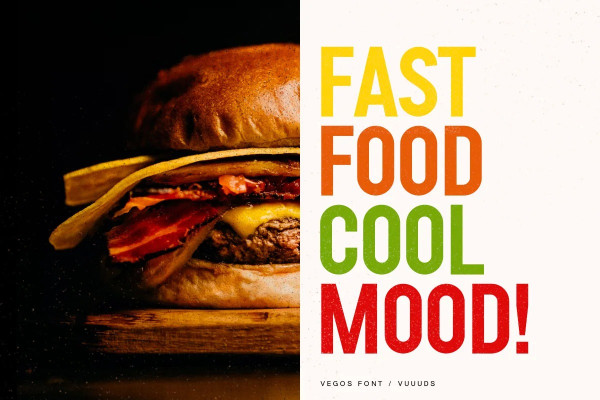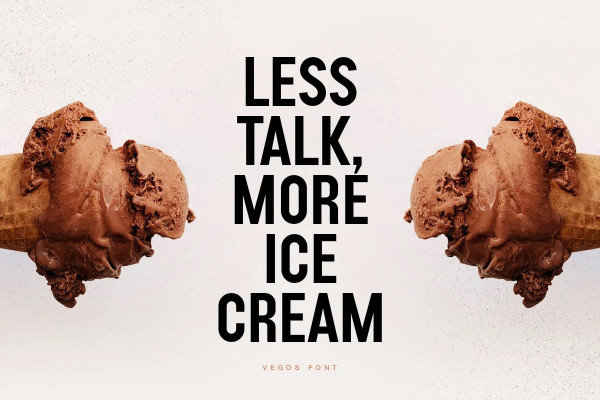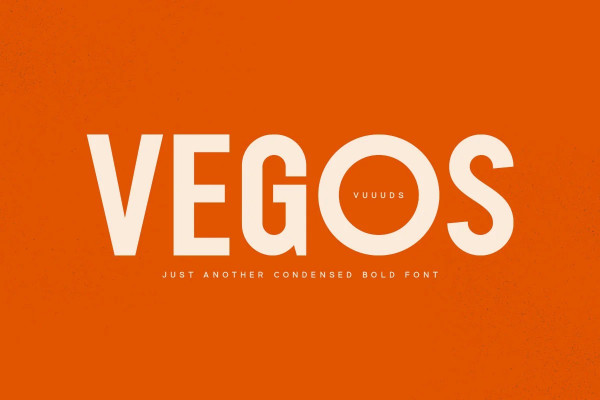
Vegos Font
Vegos Font just another condensed bold font, we work it for fun and sell it only for $12. This font including beautiful alternate glyph. You can access the alternate glyph via Font Book (Mac user) or Windows Character Map (Windows user), I’ve been put the link tutorial inside the zip file.